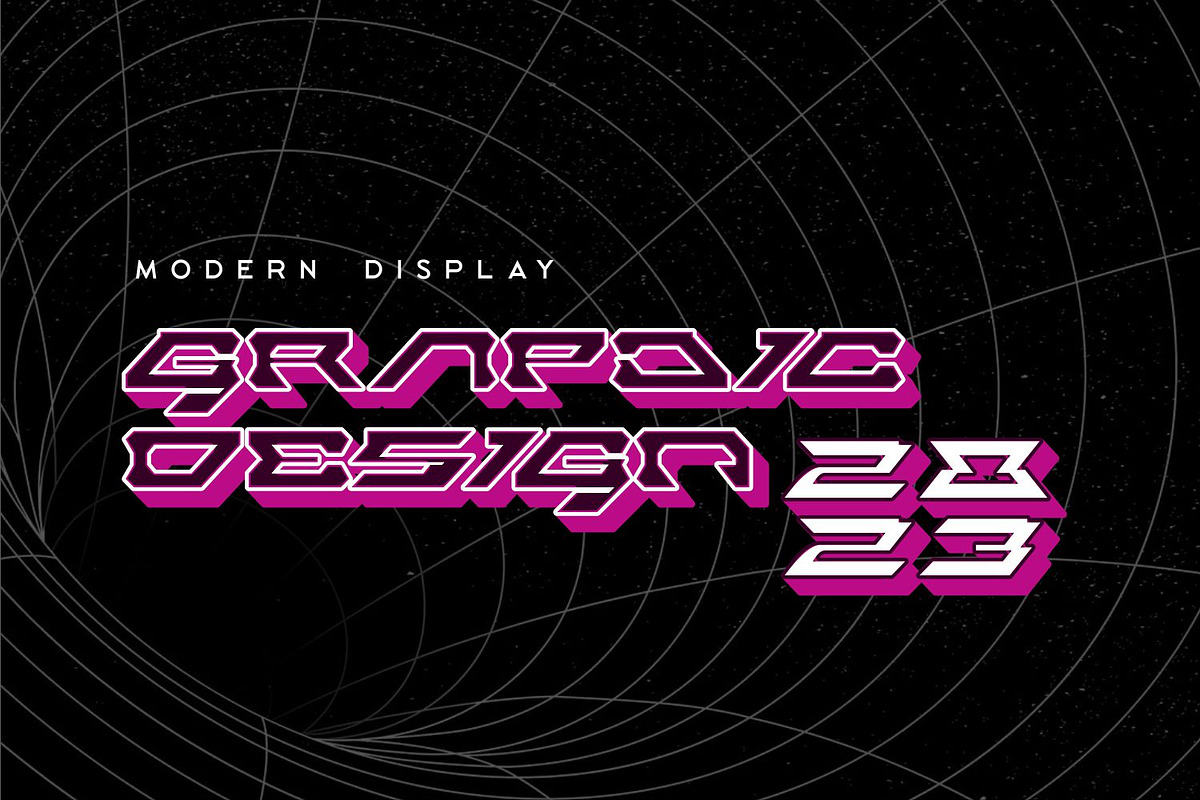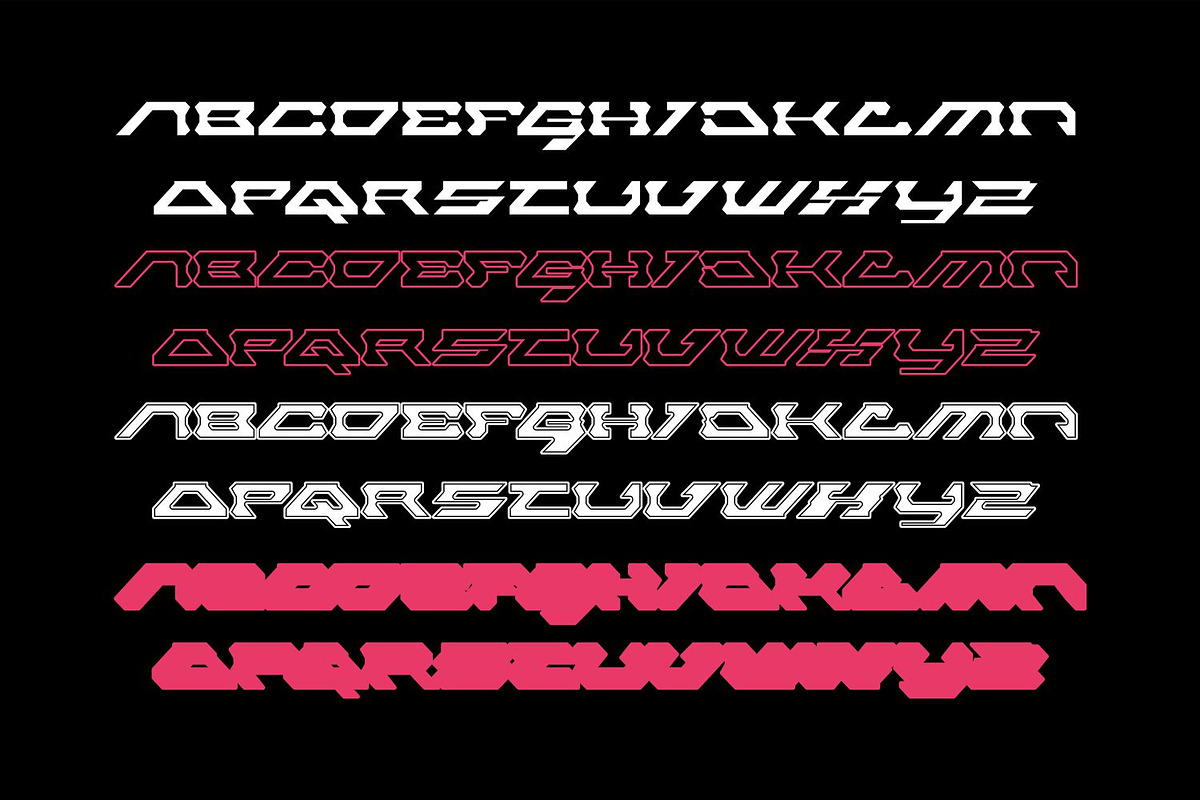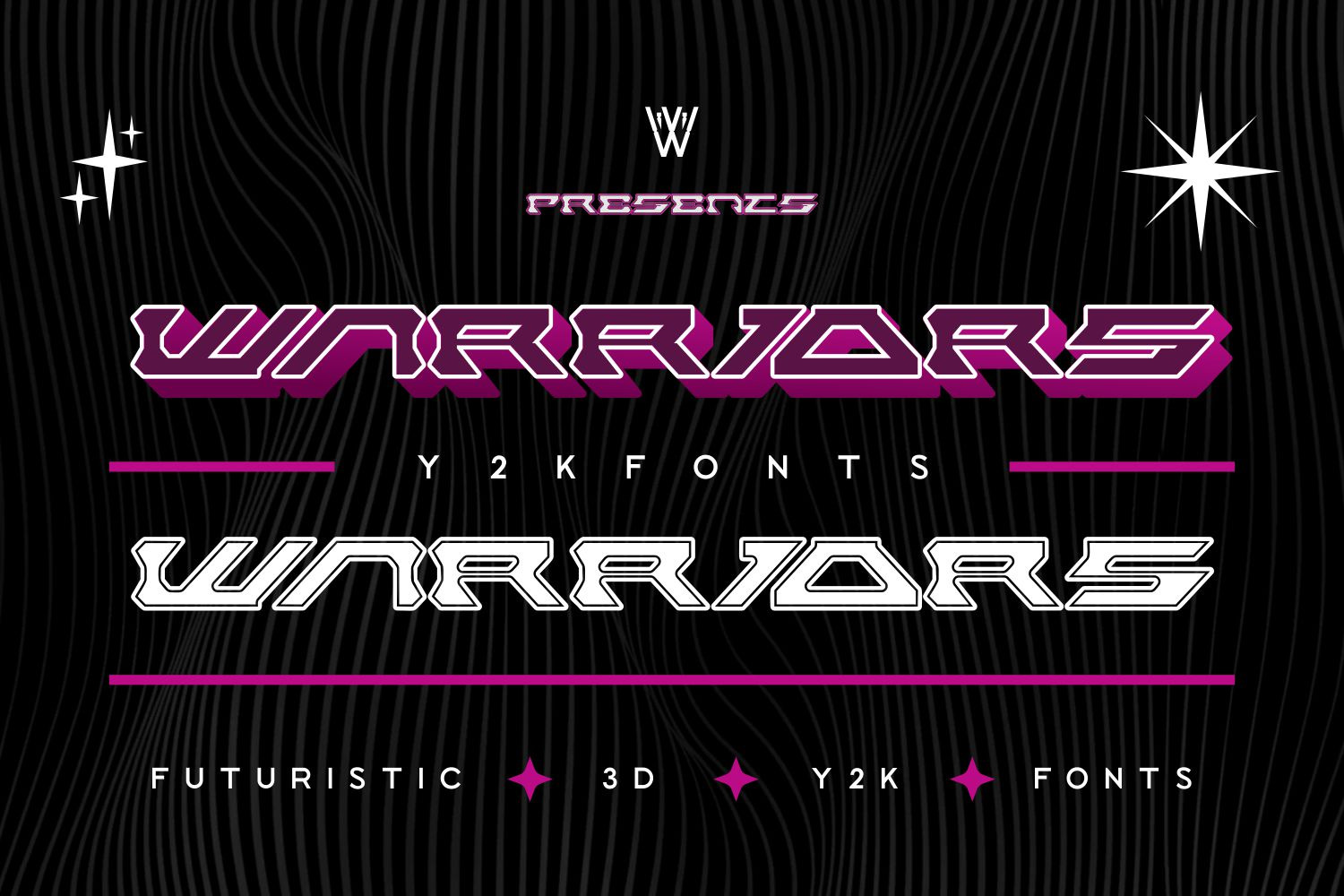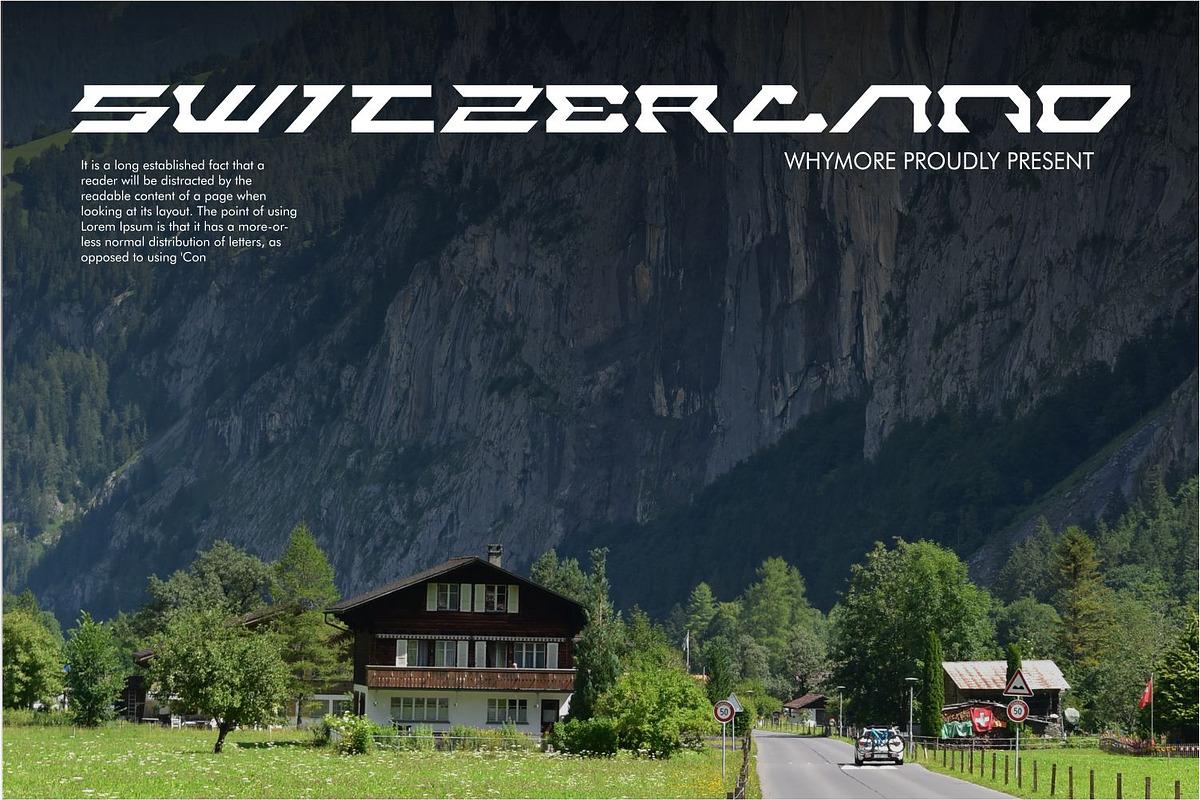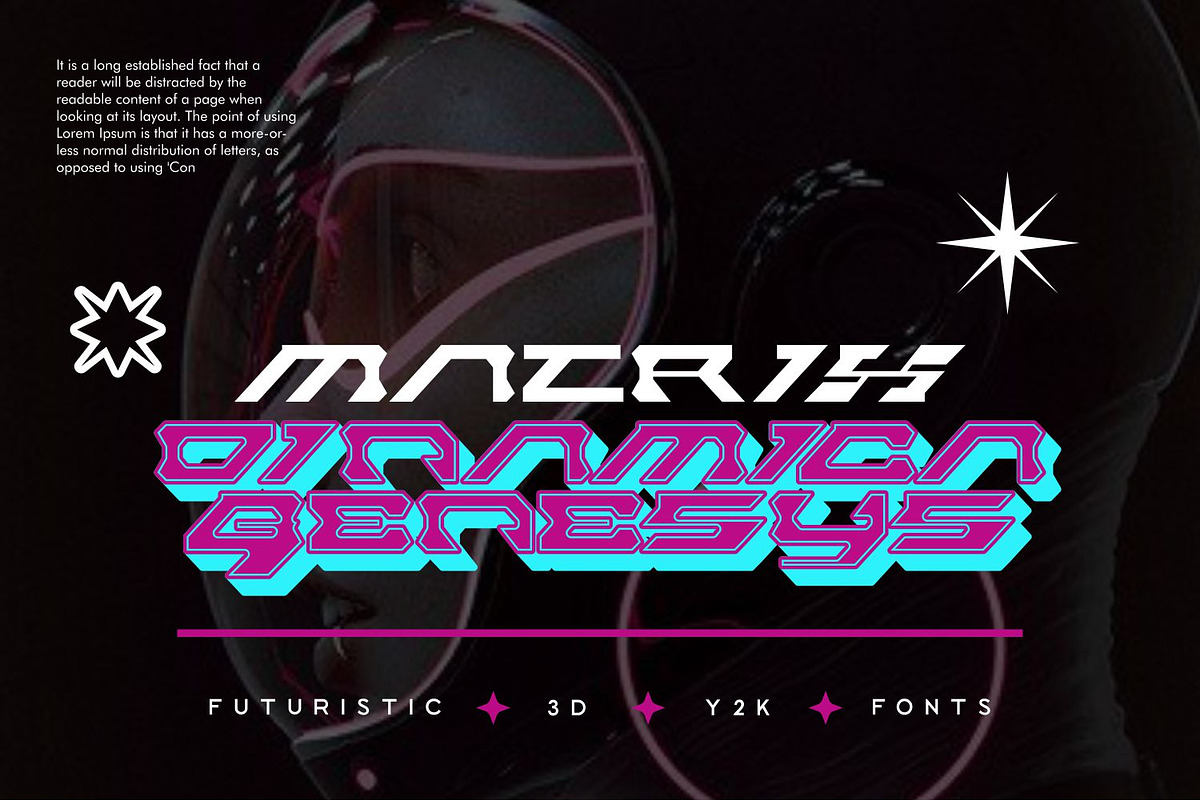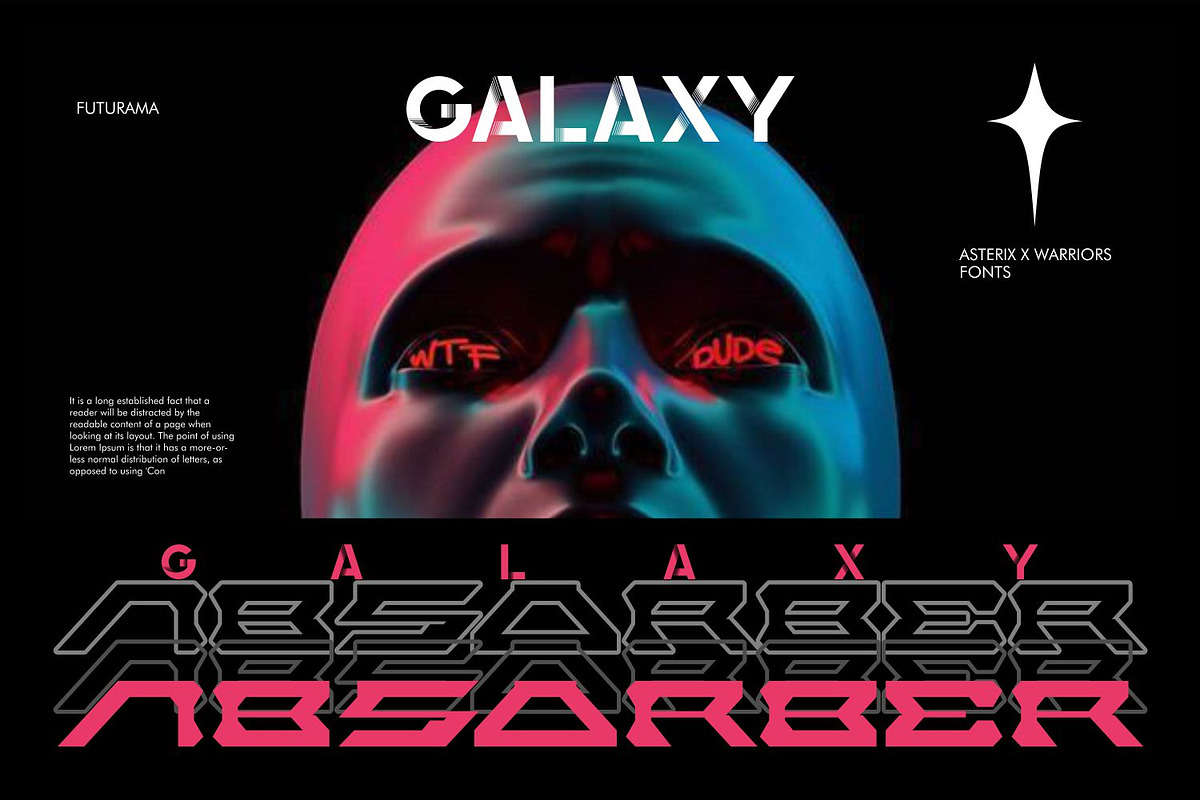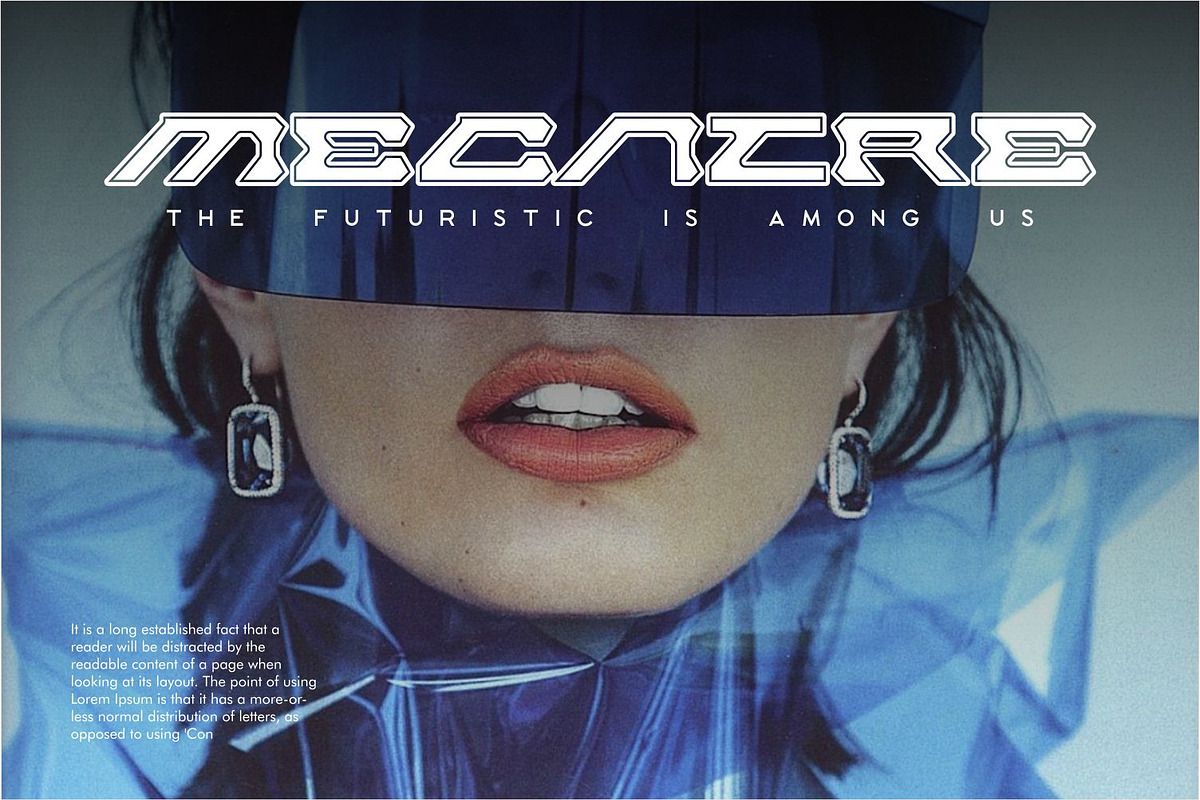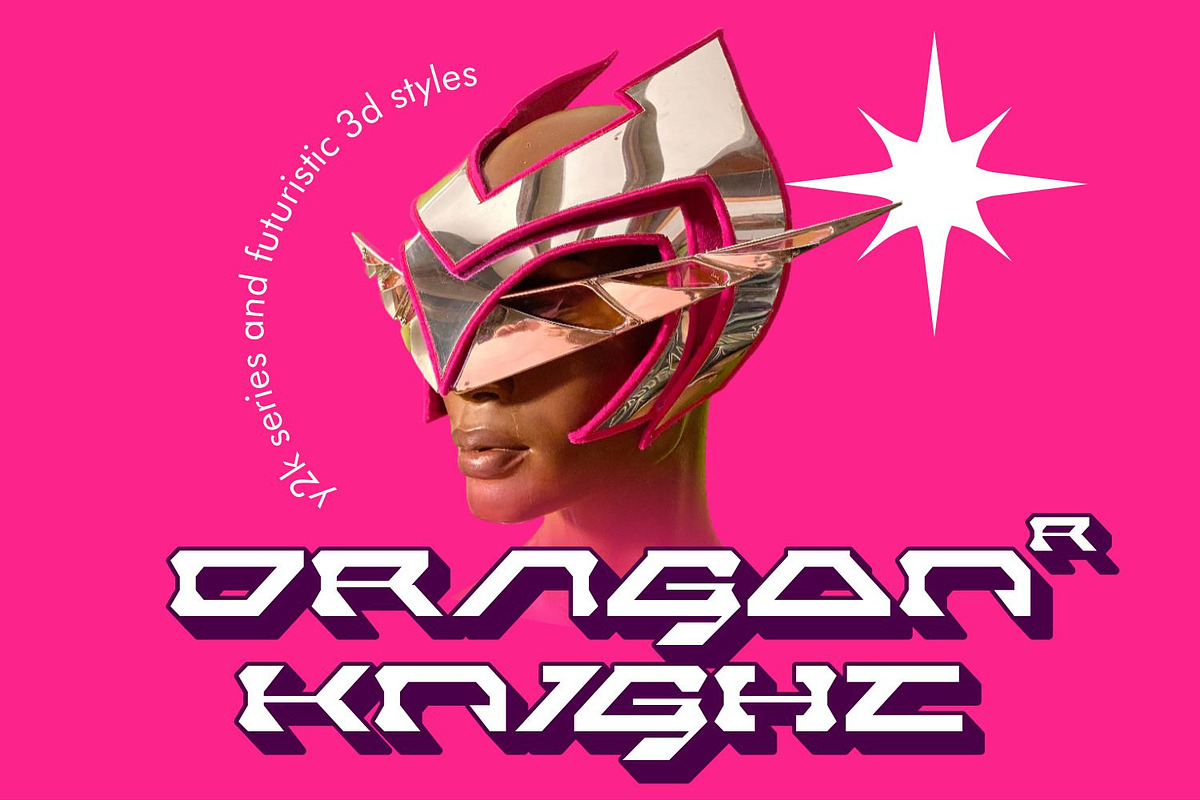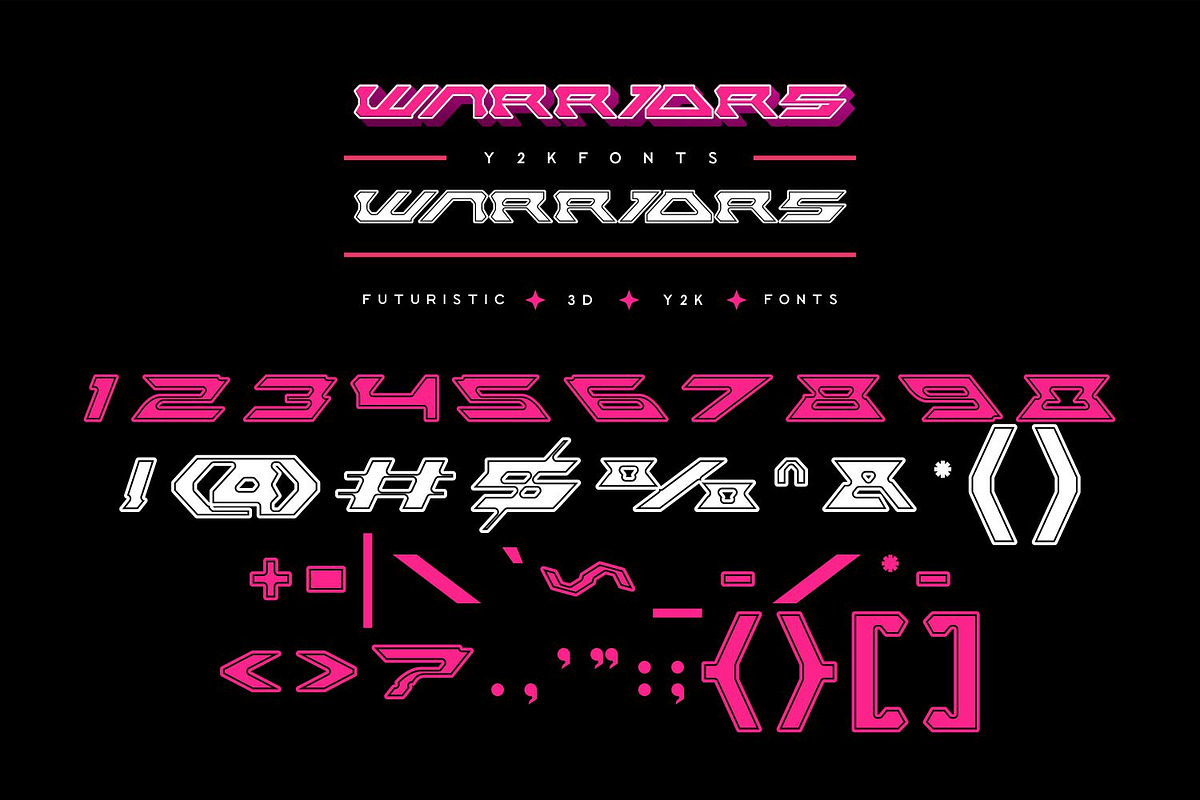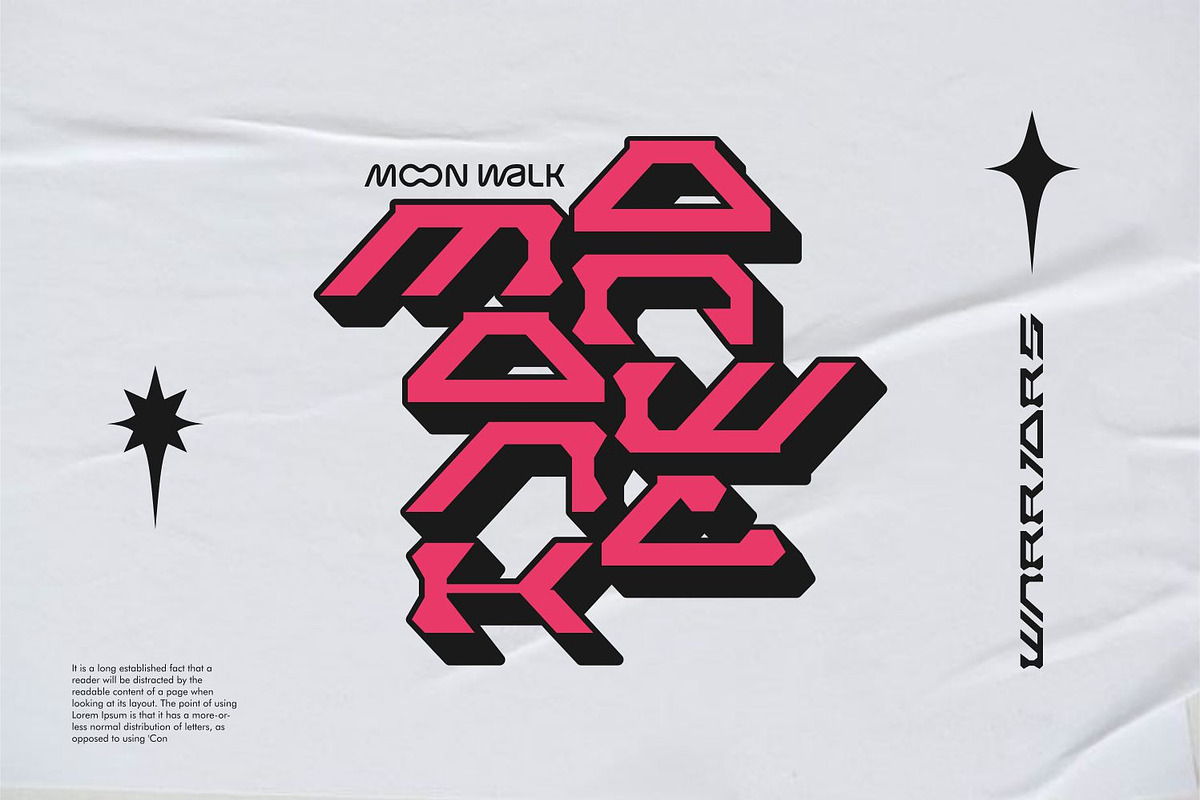
Warriors Font | Bold Y2k Font
The Warriors Font is a nostalgic nod to the Y2K era, blending retro vibes with futuristic elements for a unique typographic experience. Inspired by the digital revolution of the late 20th century, this font features bold letterforms, vibrant colors, and dynamic shapes reminiscent of early computer graphics and cyber culture. Whether you’re designing for throwback projects, gaming interfaces, or nostalgic branding, the Warriors Font adds a touch of Y2K charm that captivates the viewer. Its bold and expressive style makes it perfect for projects aiming to evoke the spirit of the turn of the millennium.